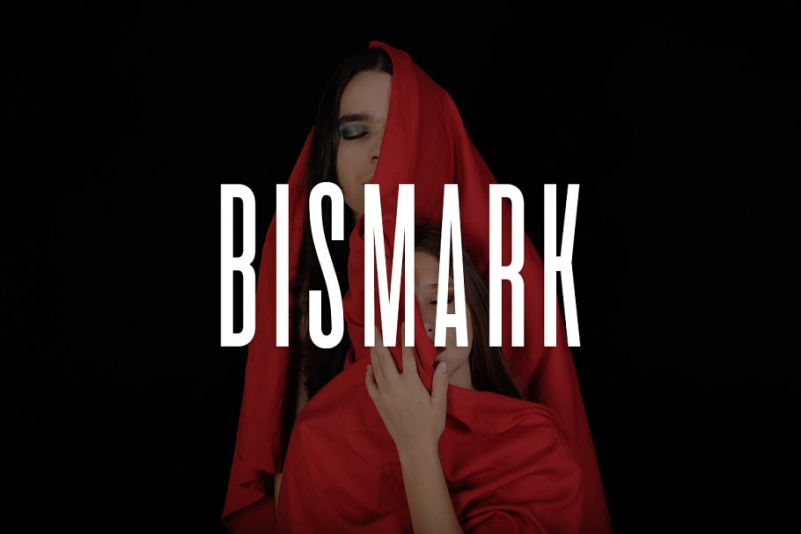
BISMARK Font
BISMARK is a unique typeface for headlines, big text, branding, logotypes & display usage. This all-caps typeface (with some unique alternatives in lowercase option) is also perfect for creating great logos, promotional content and marketing graphics that lift the creative aspects of the design. Please see the examples shown above to get an idea about the capability of this typeface.